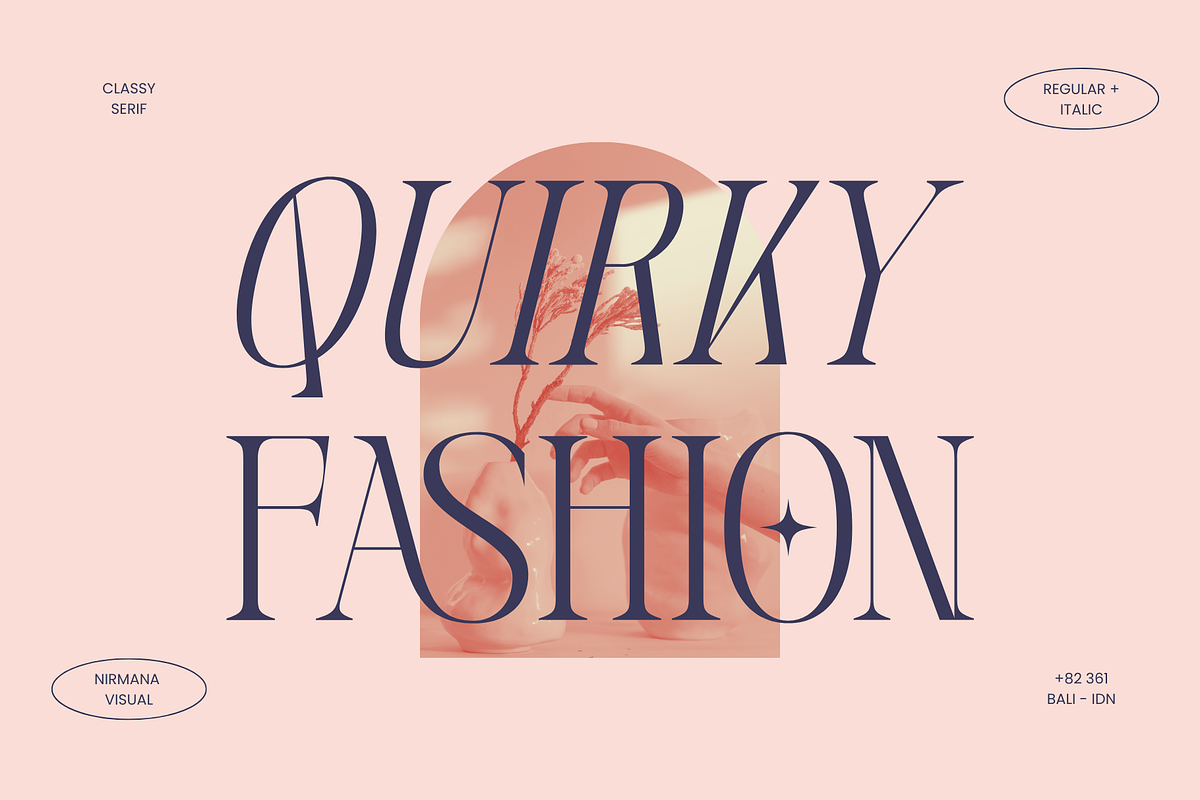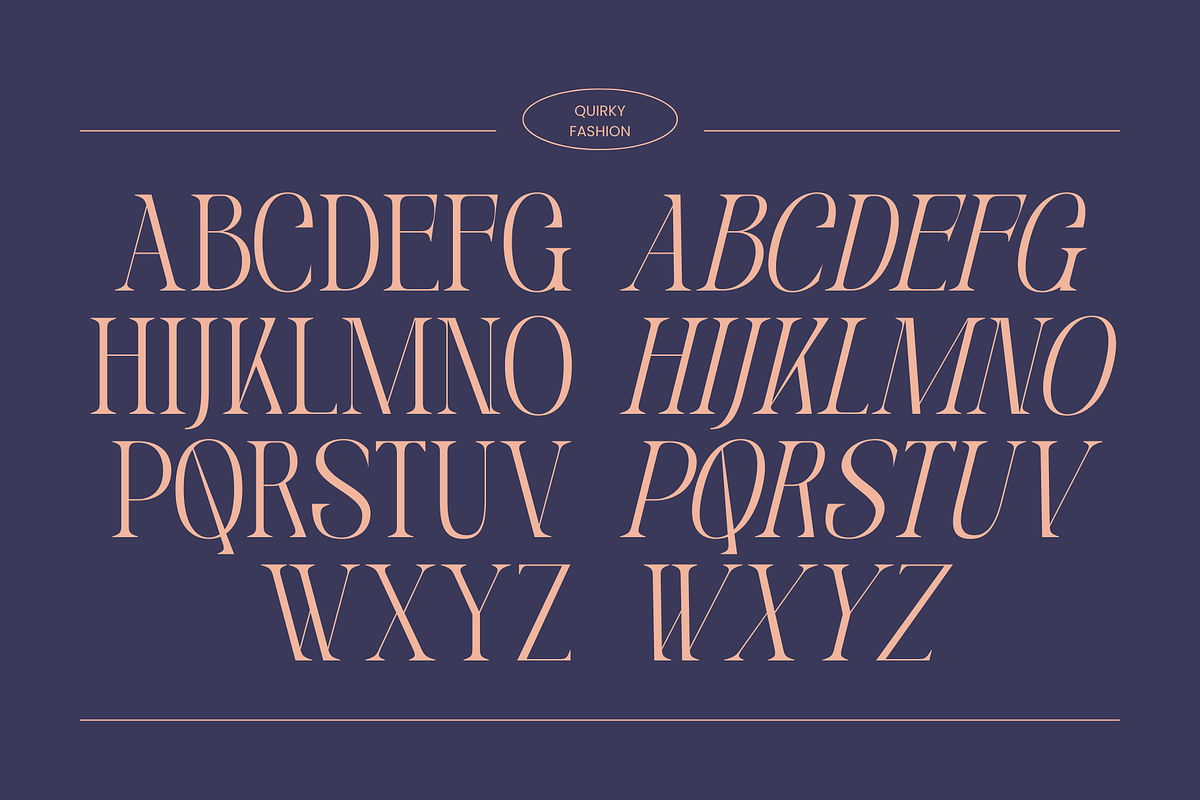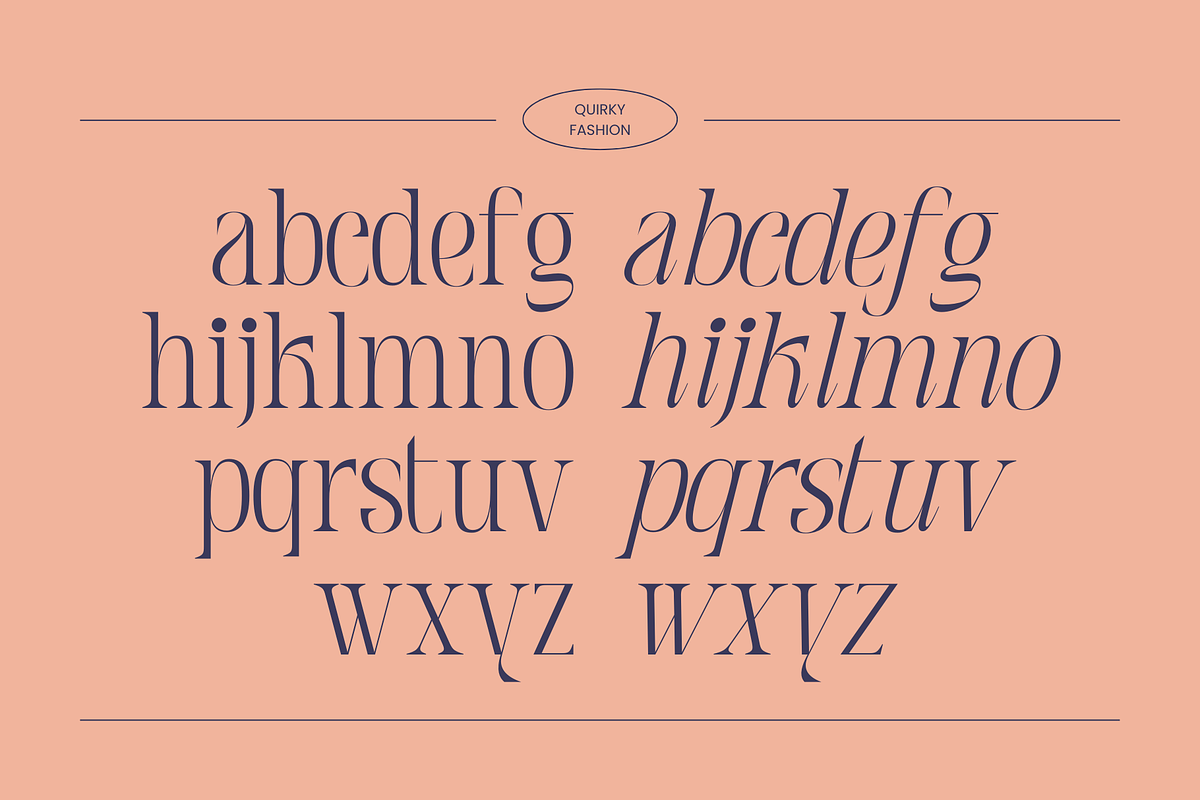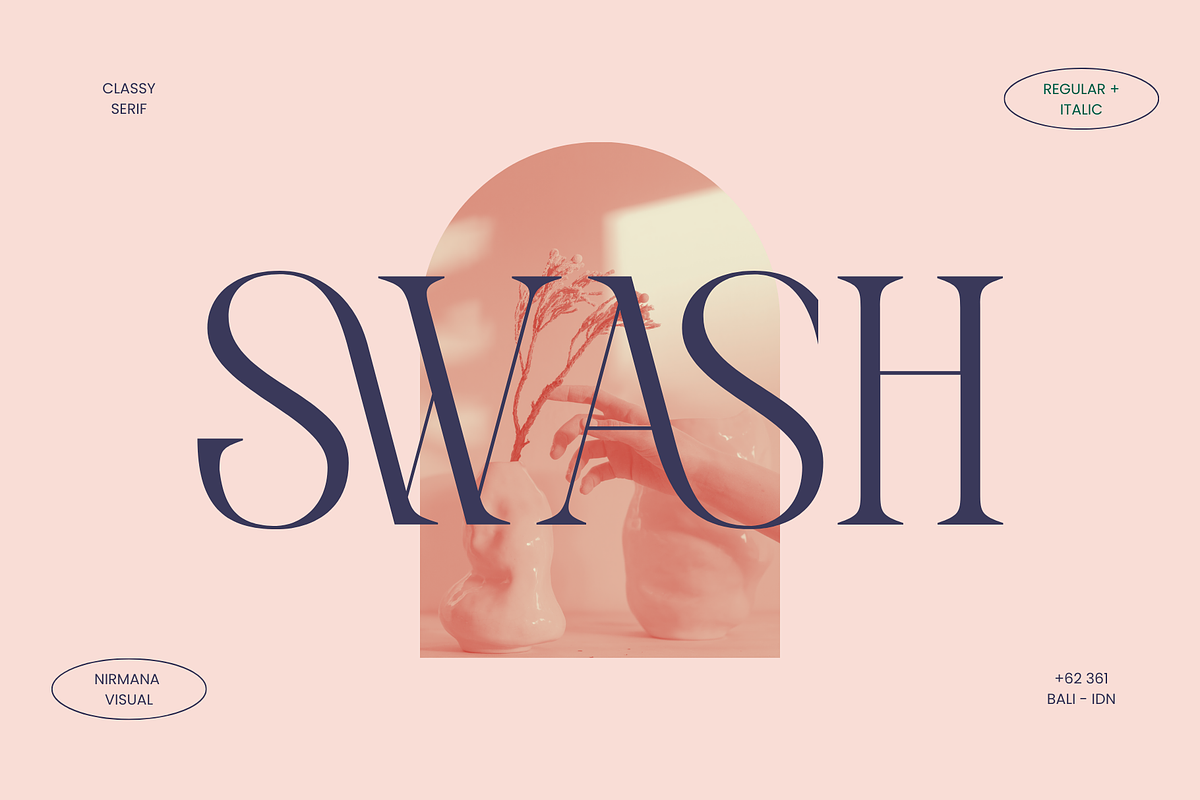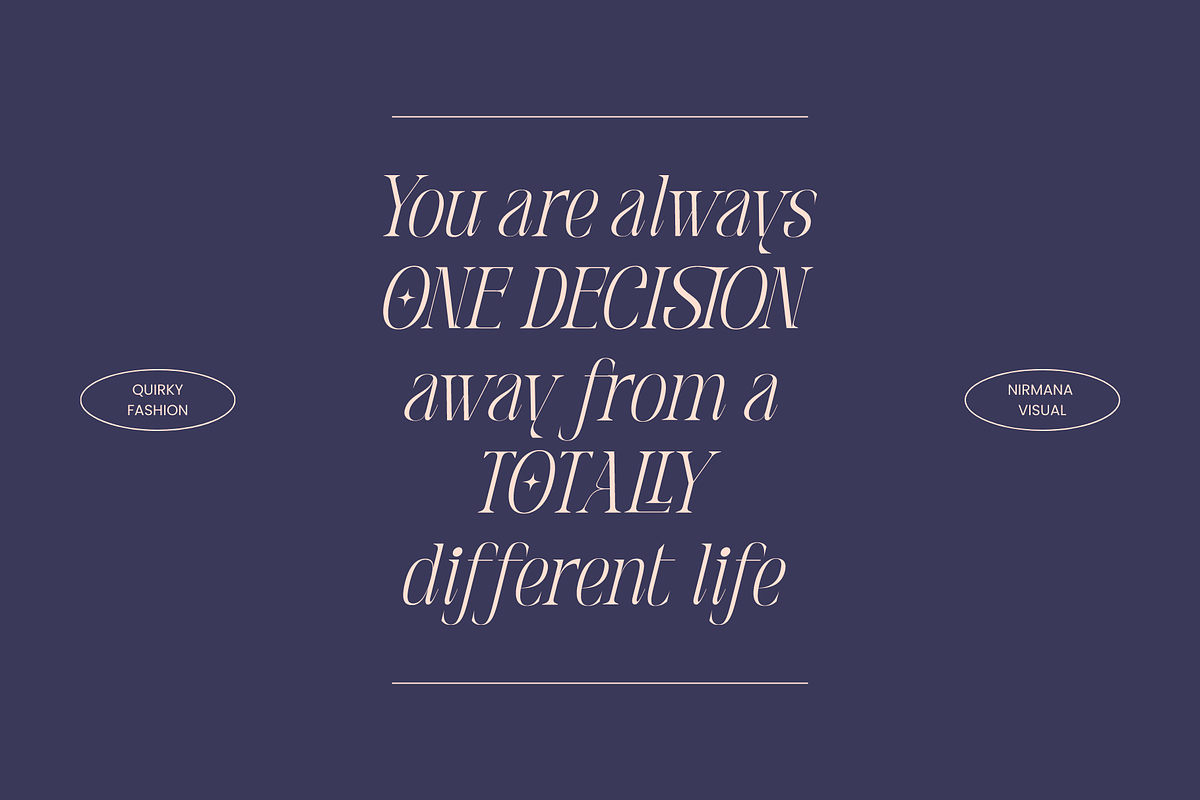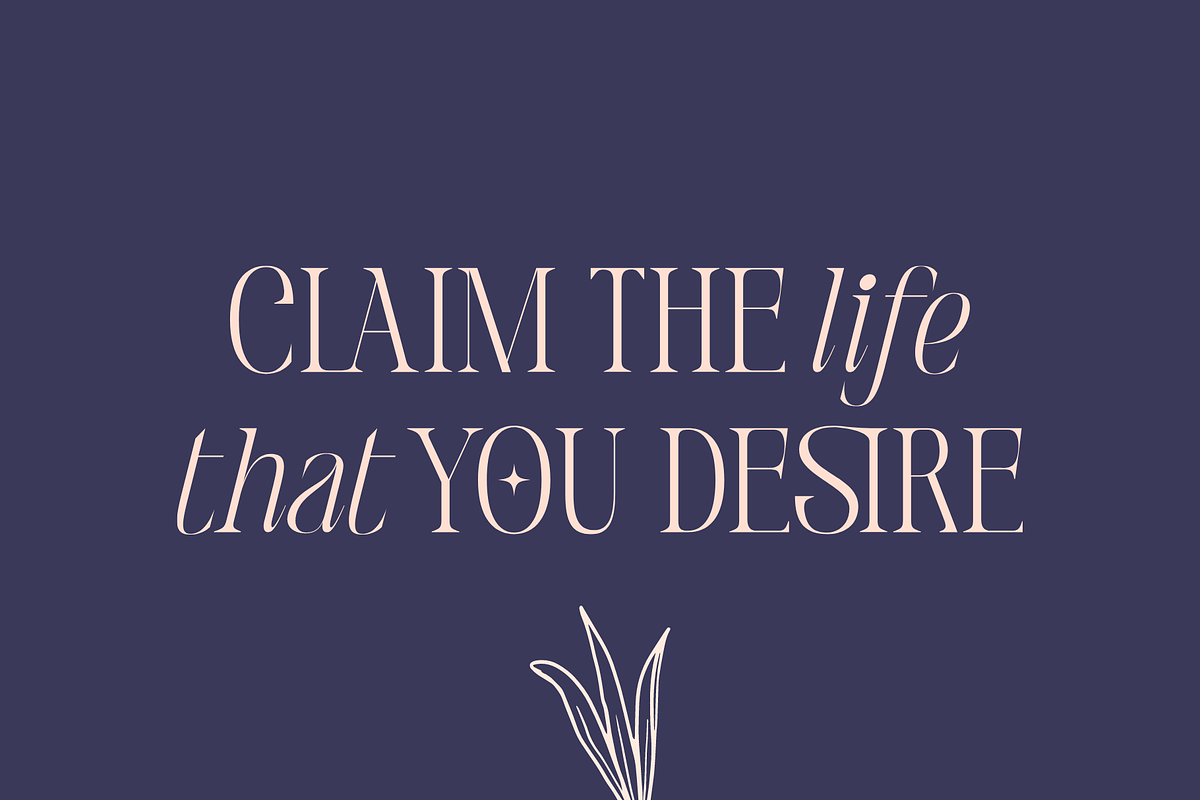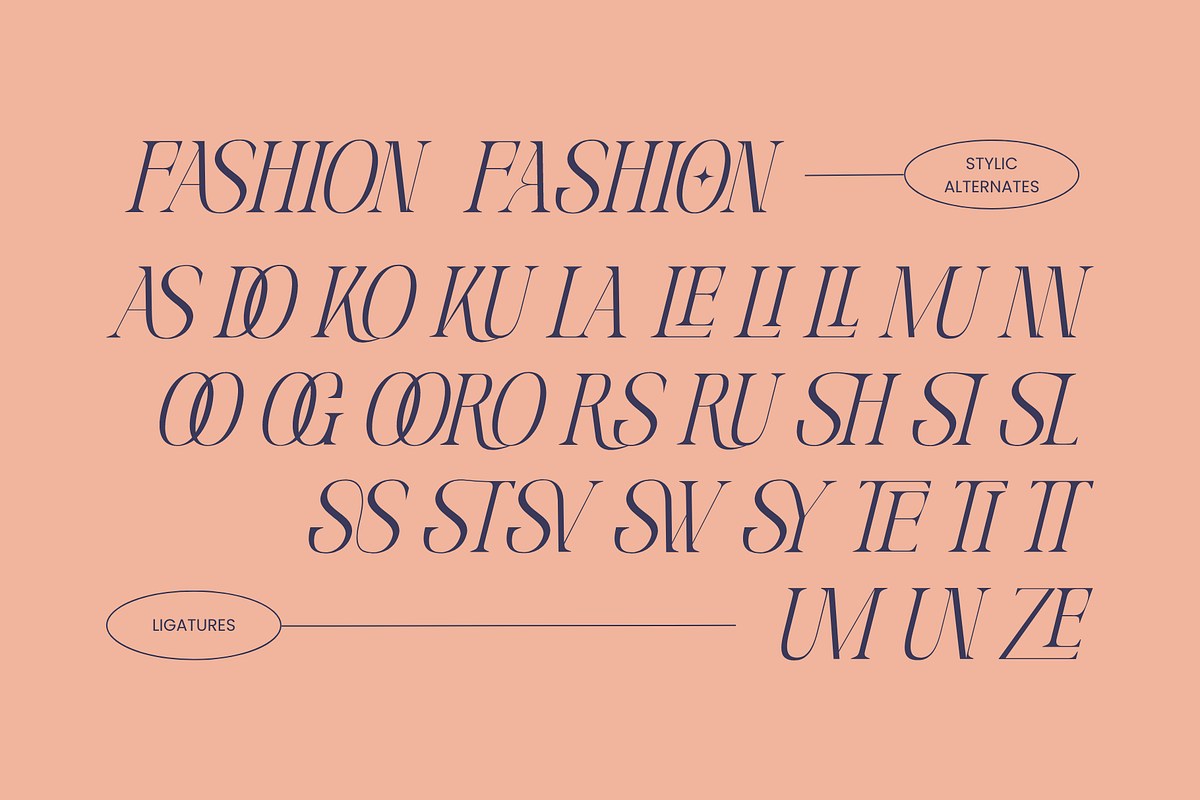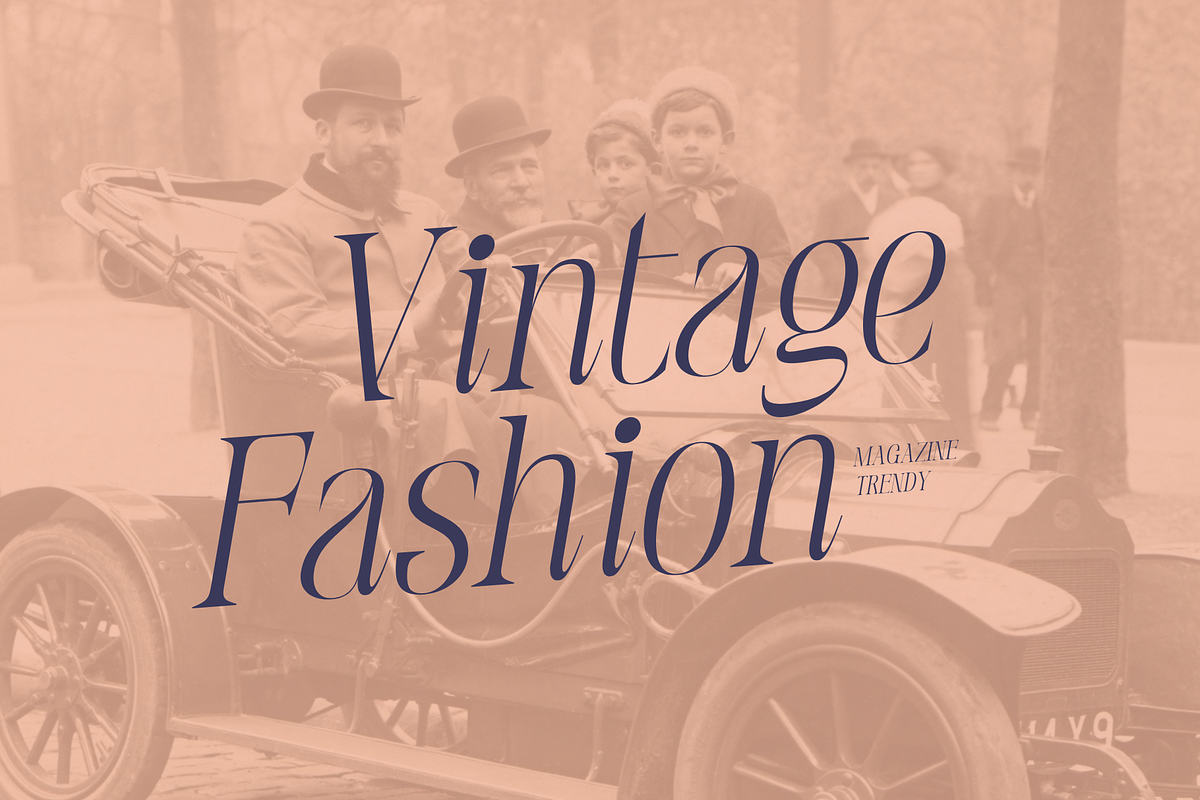
Quirky Fashion - Modern Serif
Quirky Fashion offers beautiful typographic with 2 style : Regular & Italic, harmony for a diversity of design projects, including logos & branding, social media posts, advertisements & product designs.